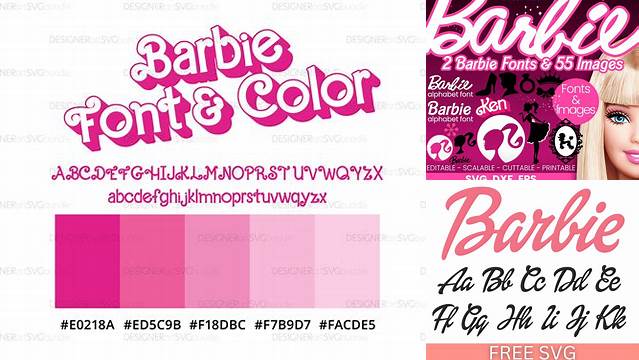
Barbie Font On Cricut: A Complete Guide
Hey Cricut crafters! Are you obsessed with all things Barbie and want to bring that iconic style to your projects? Well, you're in the right place! This guide will walk you through everything you need to know about using the Barbie font on Cricut. From finding the perfect font to creating stunning designs, we've got you covered. So, grab your Cricut machine, and let's get started!
1. Understanding Barbie's Font Aesthetic
The Barbie font isn't just one single font; it's more of an aesthetic! Think playful, girly, and often with a touch of retro. To truly capture that Barbie vibe, you need to understand the key elements that make it so recognizable. We're talking bubbly shapes, bright colors, and a sense of fun! This aesthetic usually involves fonts that are either script-based or sans-serif fonts with rounded edges to create the best effect. Many fonts try to emulate the feeling of the Barbie logo, but it is a unique design that many graphic designers and font creators have tried to imitate. The most common ones are sans-serif fonts like Arial Rounded MT Bold or script fonts like Brush Script MT.
When you're choosing a font for your Barbie-inspired Cricut project, don't be afraid to experiment. Try different combinations of fonts and colors to see what works best for your design. Consider the overall mood you're trying to create – are you going for a vintage Barbie look, or something more modern and trendy? Understanding the Barbie aesthetic is the first step to creating truly amazing projects.
2. Identifying Official Barbie Fonts
Let's be real, finding the official Barbie font can be tricky. Mattel, the company behind Barbie, closely guards its branding. However, knowing this can help you find fonts that are inspired by the Barbie font and capture its essence. While the precise font used for the Barbie logo is proprietary, several fonts capture a similar vibe. Look for bold, rounded sans-serif fonts that exude a playful and cheerful feel. In addition, it is essential to respect the copyright of the Barbie logo and branding. While using a similar font for personal projects is generally acceptable, using the official font for commercial purposes without permission from Mattel is not allowed.
When searching for these fonts, consider browsing reputable font websites and marketplaces that offer a wide selection of typefaces. These platforms often provide previews of the fonts, allowing you to see how they look before downloading them. Pay close attention to the font's characteristics, such as its weight, spacing, and overall style, to ensure it aligns with the Barbie aesthetic you're aiming for.
3. Finding Barbie-Inspired Fonts for Cricut
Okay, so you might not be able to get the exact Barbie font, but there are tons of amazing alternatives! The key is to look for fonts that have a similar vibe. Think playful, bubbly, and a little bit retro. Websites like DaFont, FontSpace, and Creative Fabrica are goldmines for finding these gems. Use keywords like "bubble font," "cartoon font," or "retro script" to narrow down your search.
Creative Fabrica offers many fonts that capture the essence of the Barbie font. These fonts often feature rounded edges, bold strokes, and playful designs that evoke the cheerful and nostalgic feel of the Barbie brand. Be sure to check for licensing terms before using any font. While many fonts are free for personal use, commercial use typically requires a license. Always double-check the terms to ensure you're using the font legally and ethically.
If the font still doesn't appear, you can manually upload it by selecting "Upload Font" in the font selection menu. This allows you to browse your computer and select the font file you want to use. However, this option is not available for all fonts, as Cricut Design Space has certain restrictions on font formats and licensing. Always ensure that the font you are uploading is compatible with Cricut Design Space and that you have the necessary permissions to use it.
Adjust the kerning of your Barbie font to create a balanced and harmonious text layout. Increase the kerning to create more space between letters. Decrease the kerning to create less space between letters. Use your eye to judge the kerning and make adjustments as needed. Consider using a kerning tool or guide to help you achieve optimal kerning. Remember, good kerning is essential for creating professional-looking designs.